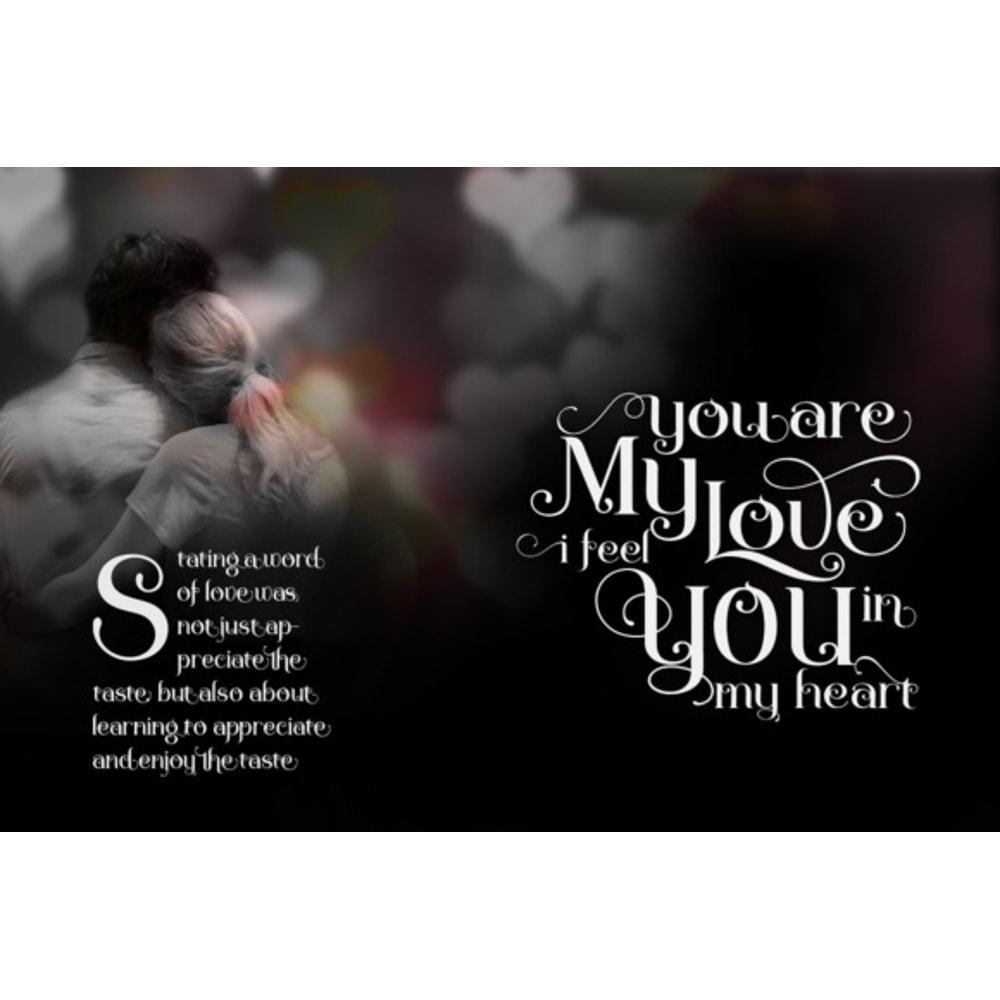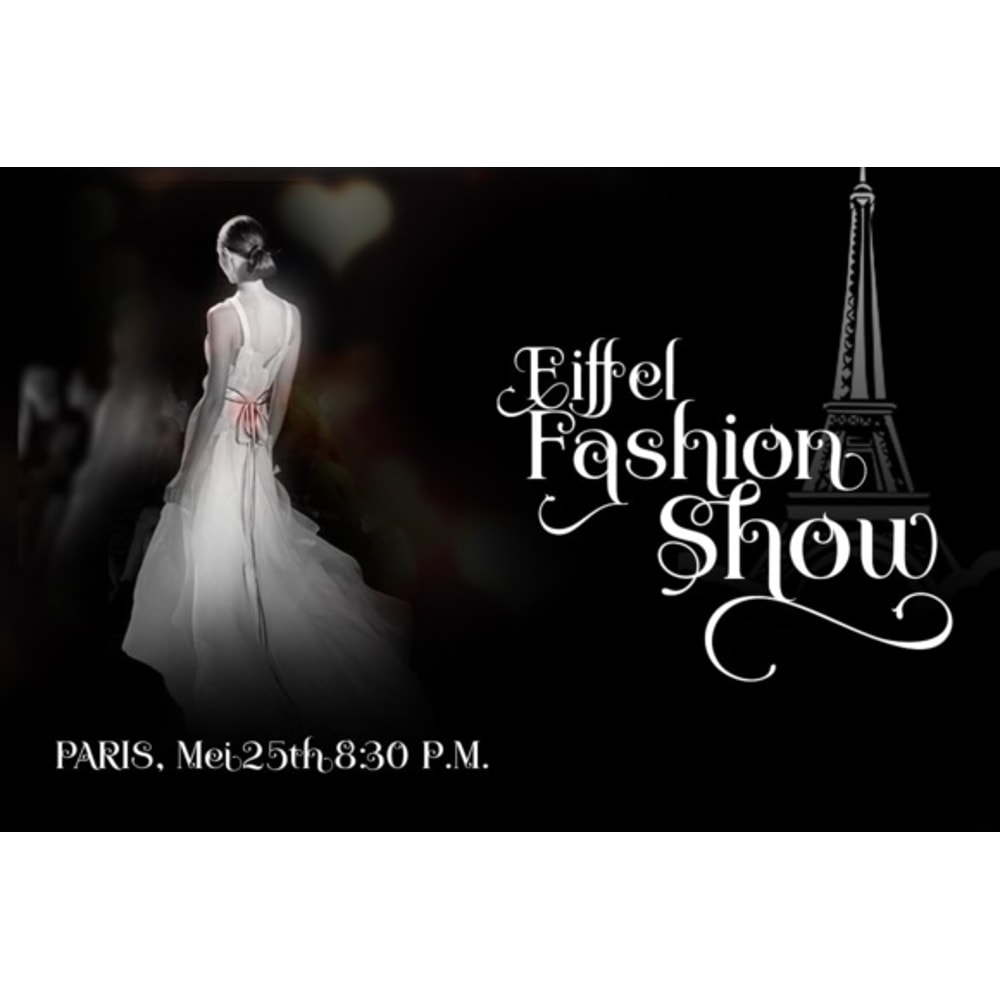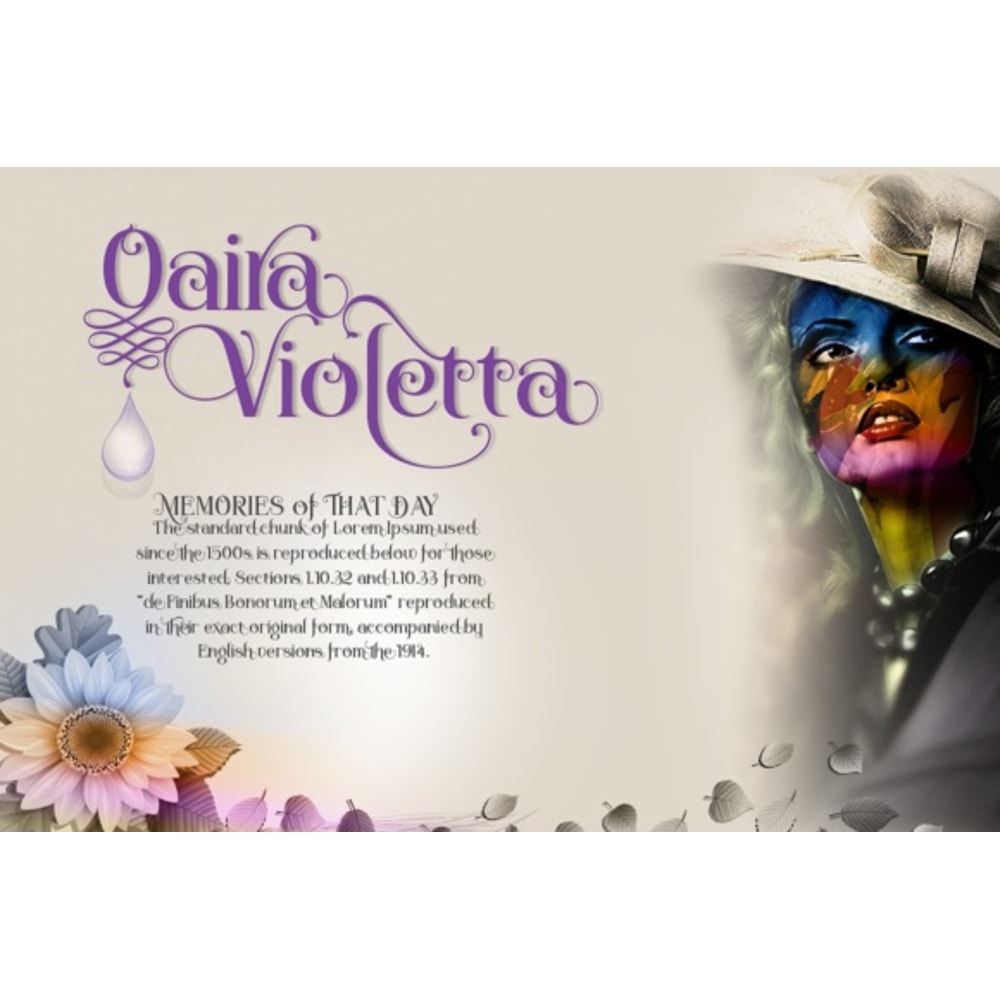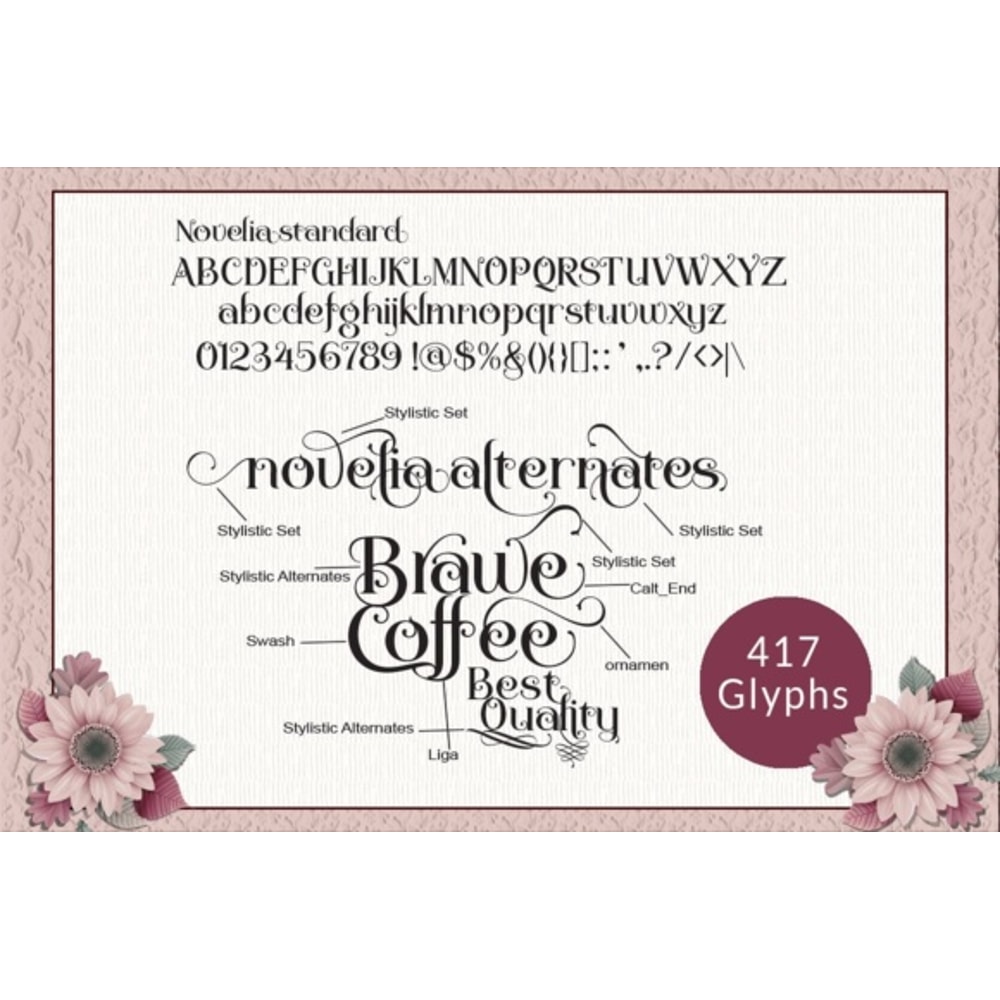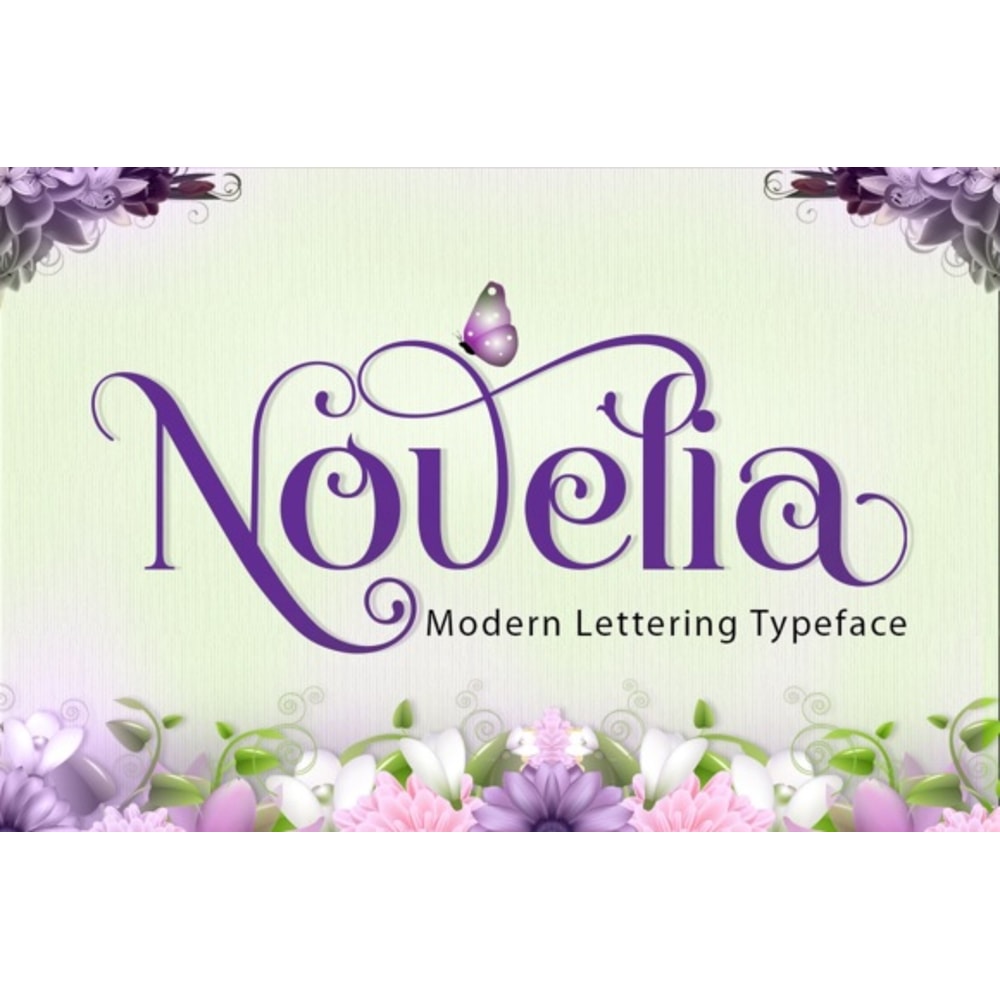
-----FULL ALPHABET FONT WITH SPECIAL CHARACTERS (with lots of swirling letters)-----
Digital handwritten font - New Fashion Font is a sweet calligraphy style, you will get lots of rotating characters.
Beautiful for invitations as greeting cards, branding materials, business cards, quotes, posters, Cricut artwork, and more!